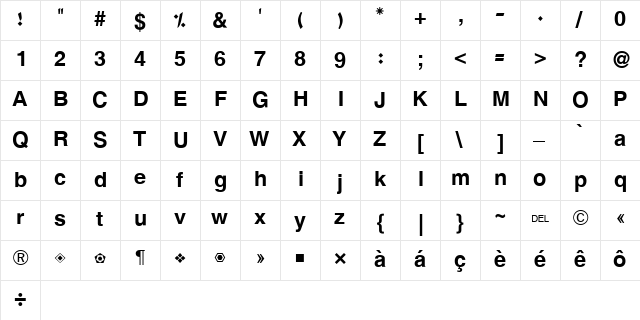
Hacen Typographer Heavy Regular
| Foundry | Muhammad Hacen |
| Designer | Muhammad Hacen |
Design Context for Hacen Typographer Heavy Typeface
Hacen Typographer Heavy offers clean, dependable letterforms without strong stylistic allegiance, making it a practical choice for designers who need flexibility.